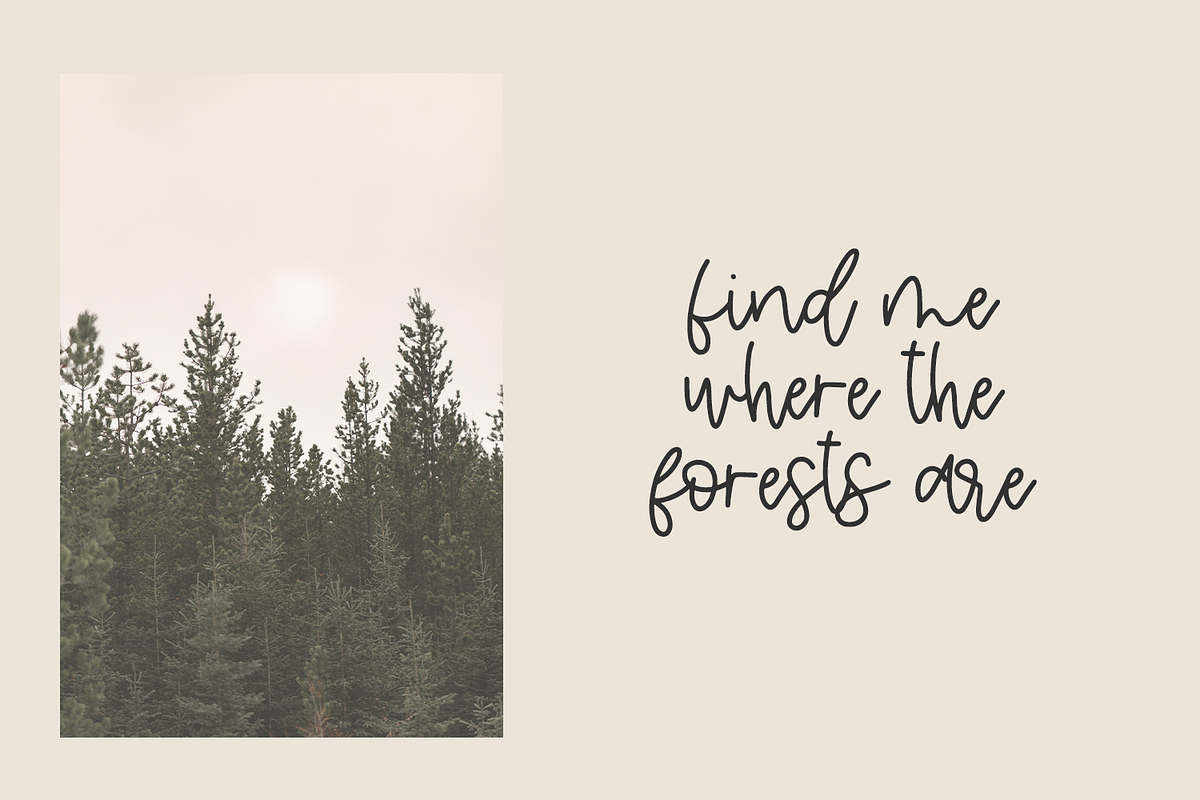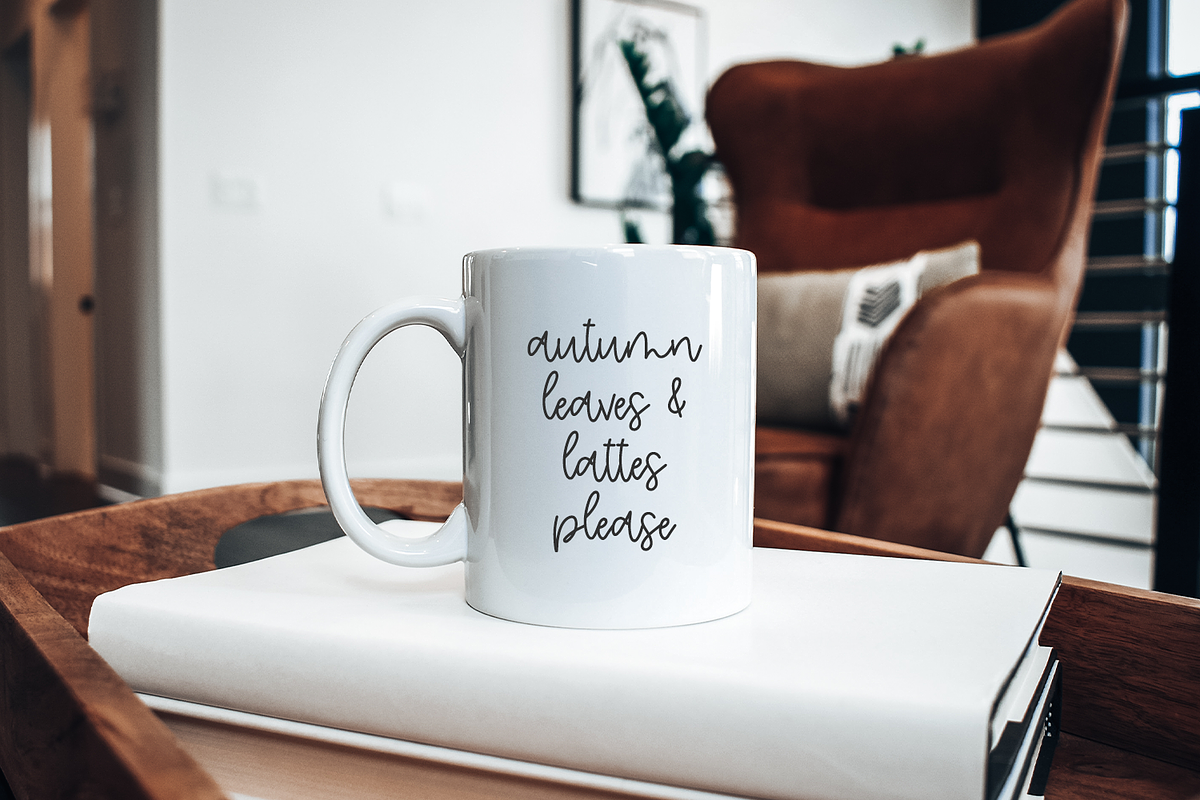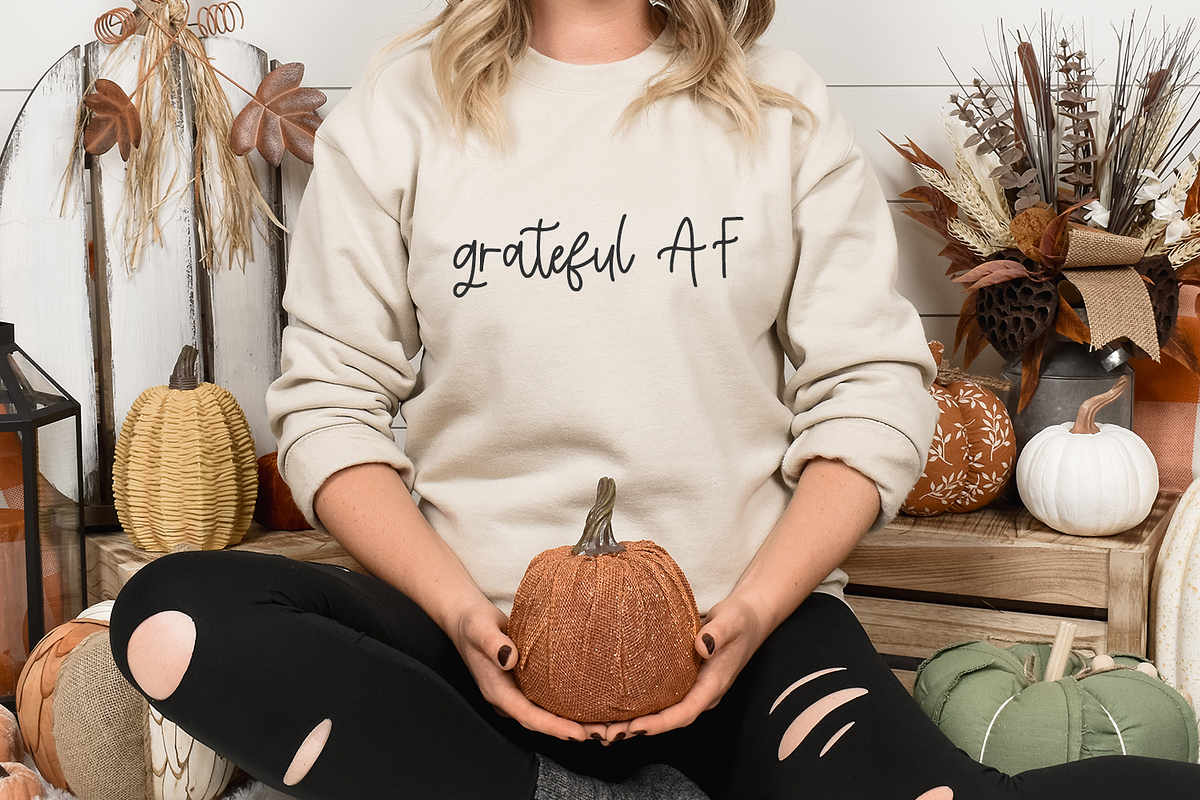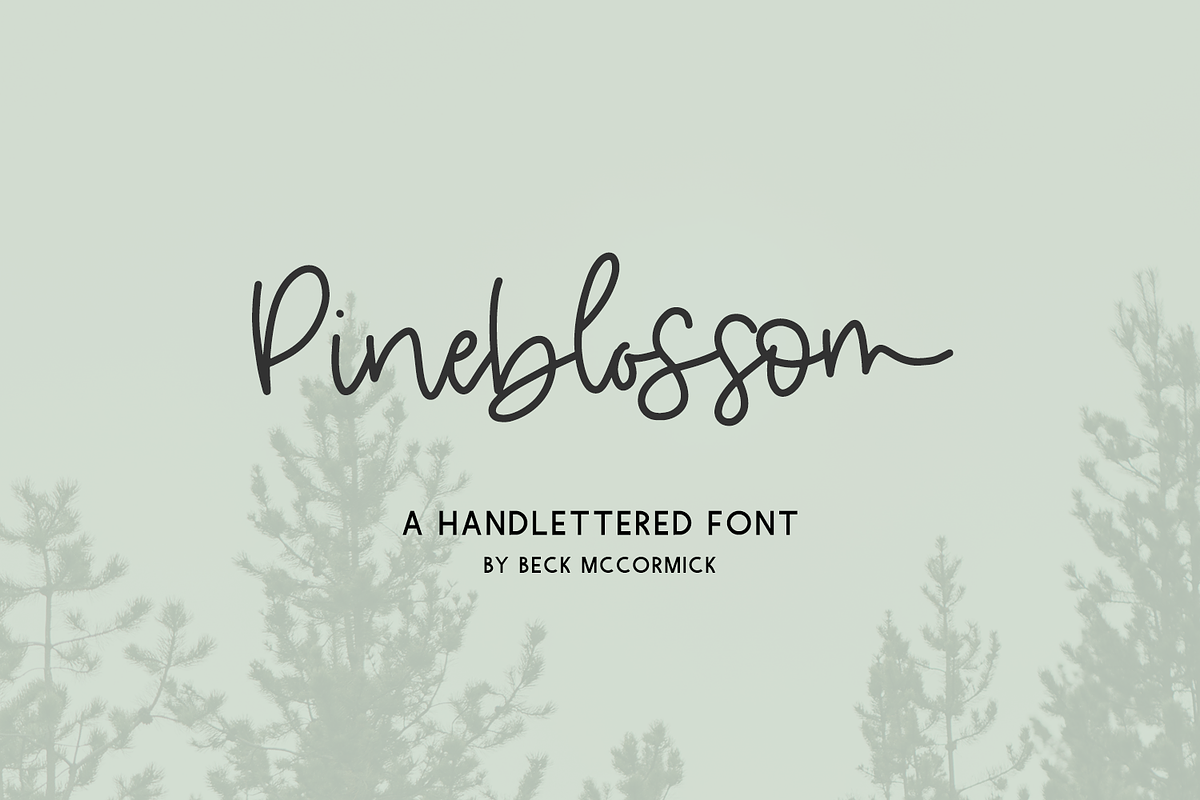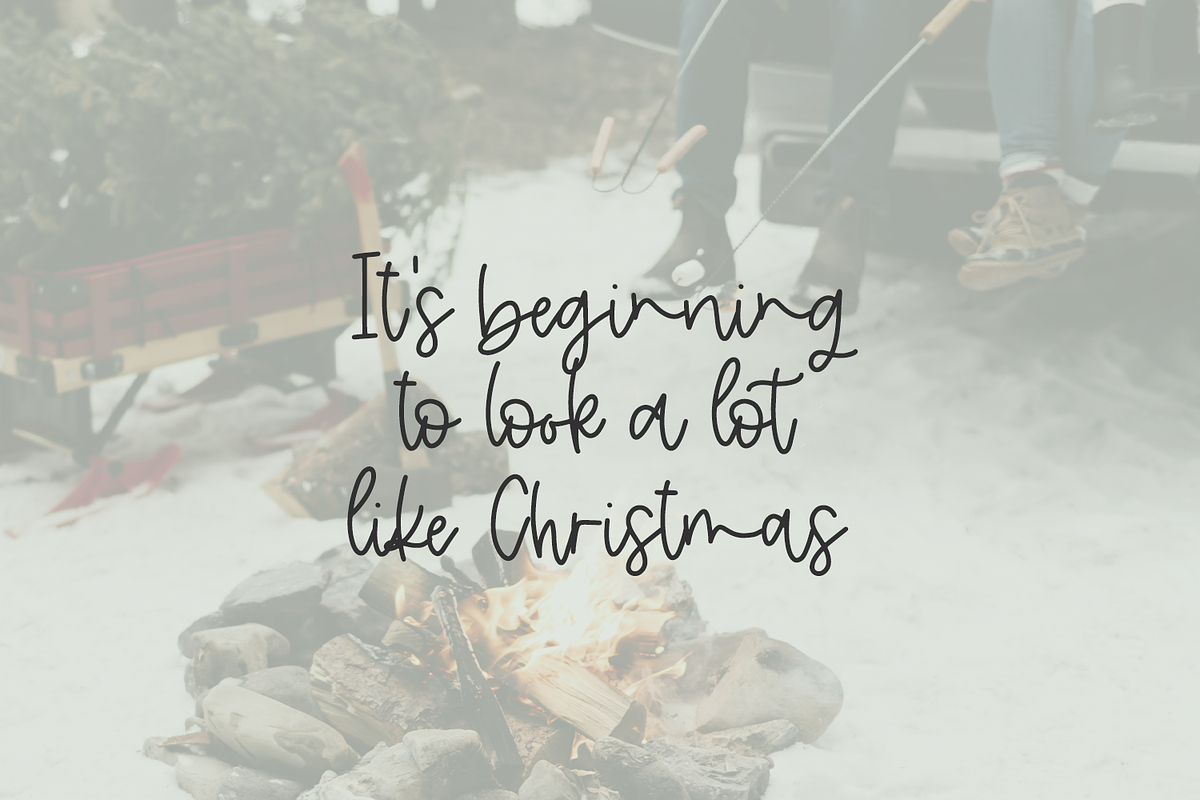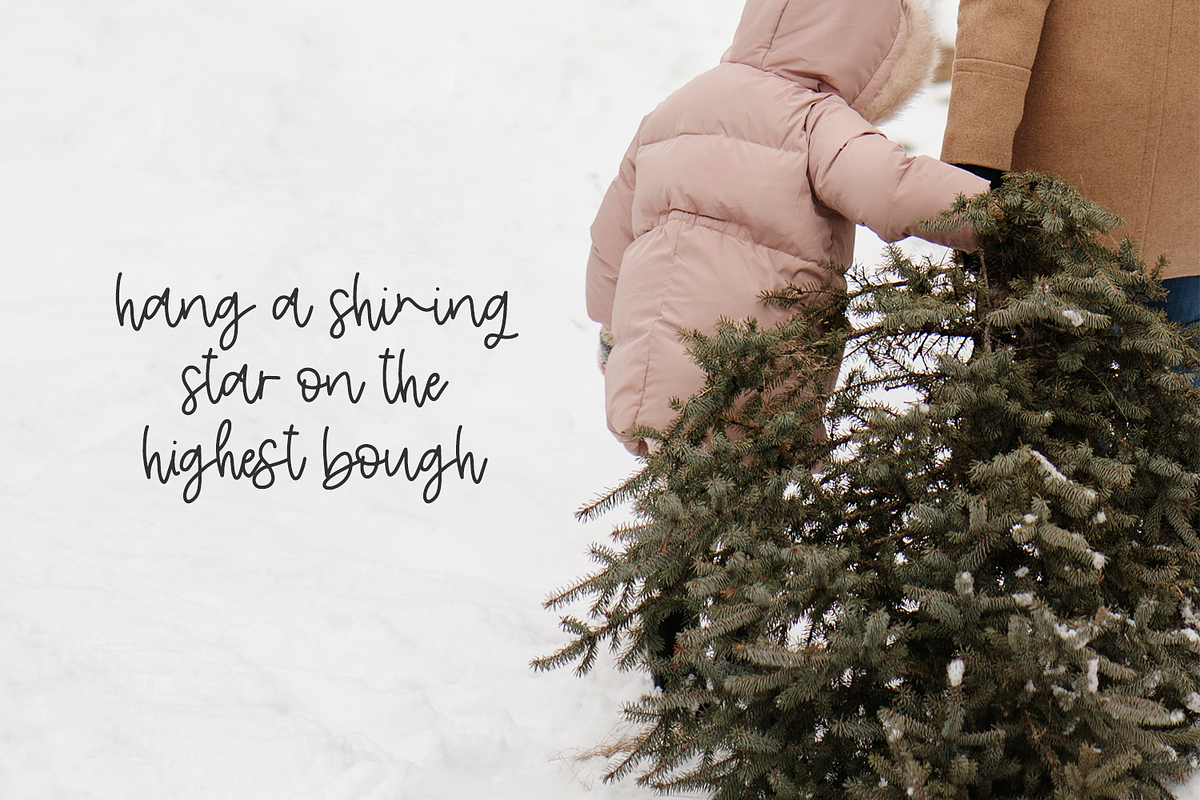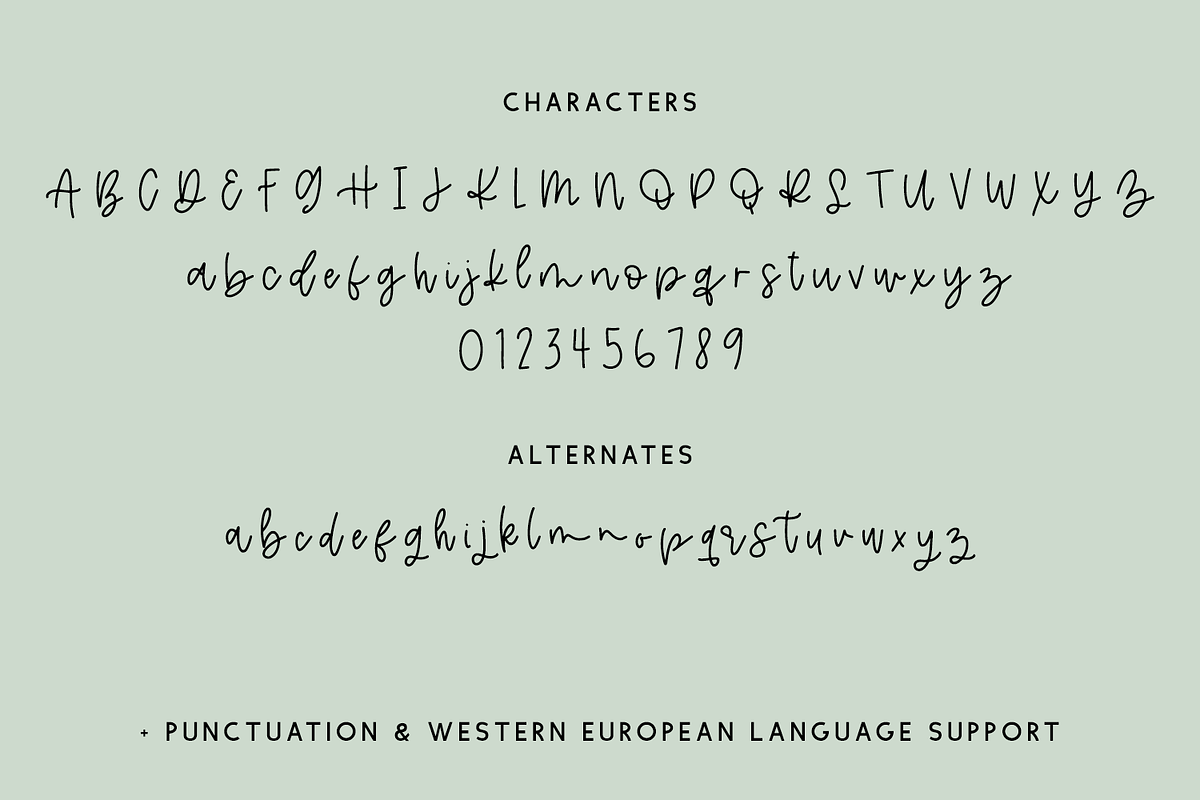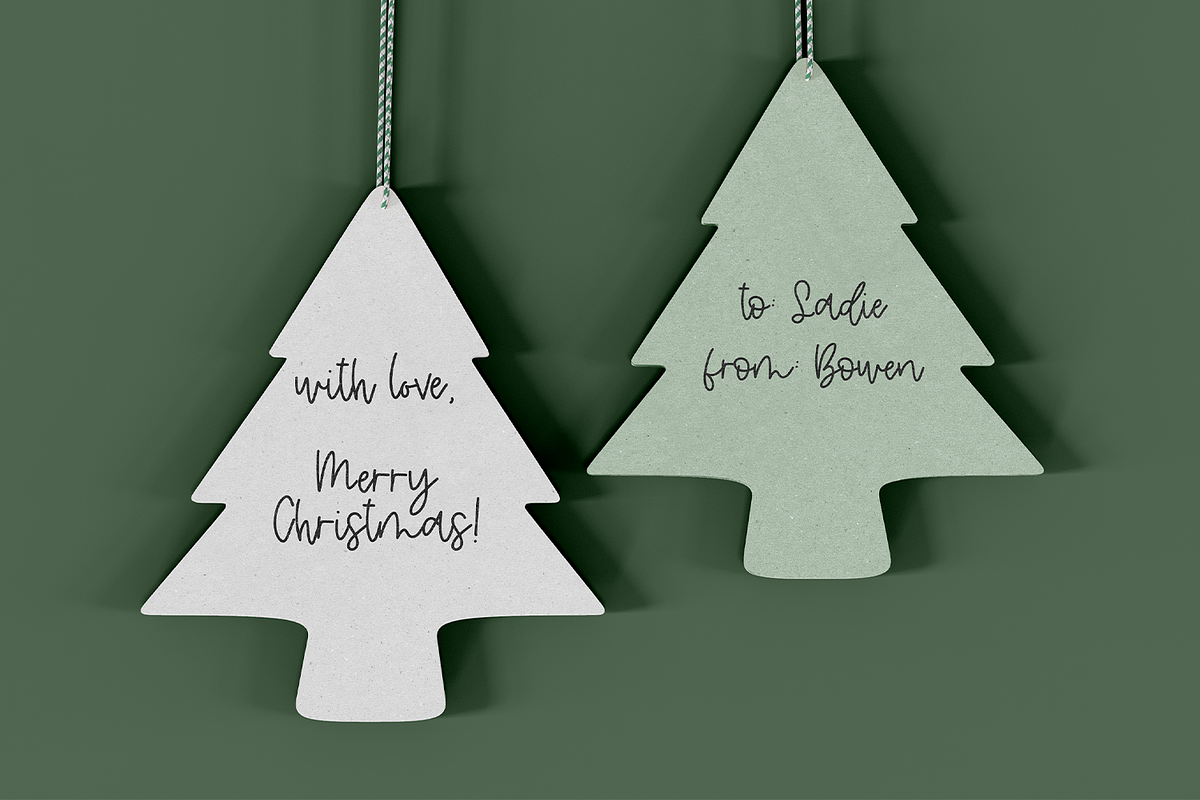
Pineblossom Script
Introducing Pineblossom Script, a thin, handlettered modern calligraphy script. Pineblossom Script features 26 alternates to enhance the handwritten look & feel of your project.
Pineblossom is best for:
- modern farmhouse decor and crafts
- logos + branding
- website design + website accents, blog design
- clean print design, like magazines + flyers
- header elements that need handwritten touch
- quote graphics for social media
- feminine graphic tee shirt design & other apparel
- Christmas projects like cards & gift tags
- full upper + lowercase characters
- numbers + punctuation
- Western European Language Support
- 26 alternates